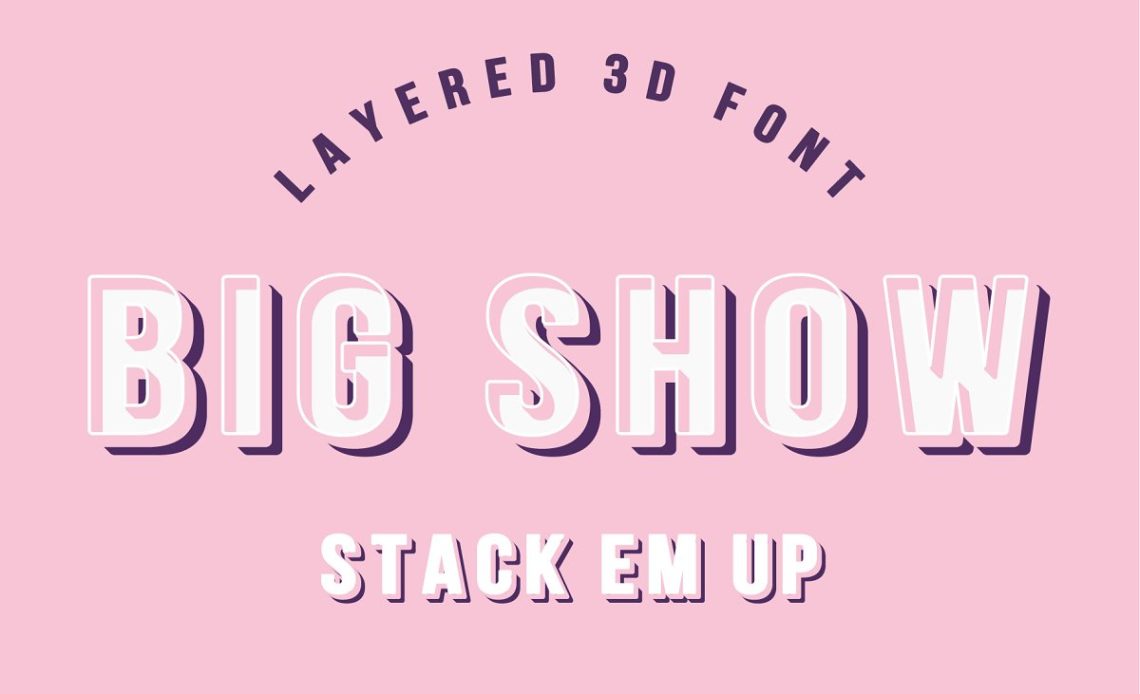
Download BIG SHOW – Layered 3D font for free! Created by New Tropical Design Studio and published by Cheskel Curry, this sans serif font family is perfect for adding a unique touch to your designs.